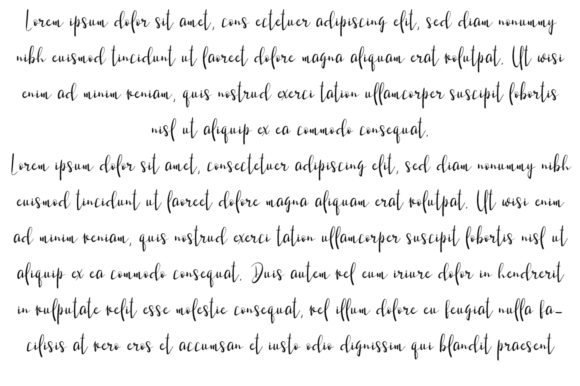
Sontiquity Font
About Sontiquity Font
Sontiquity is a ligth and elegant handwritten font with a unique charm. It will put a lovely twist on any creative idea!